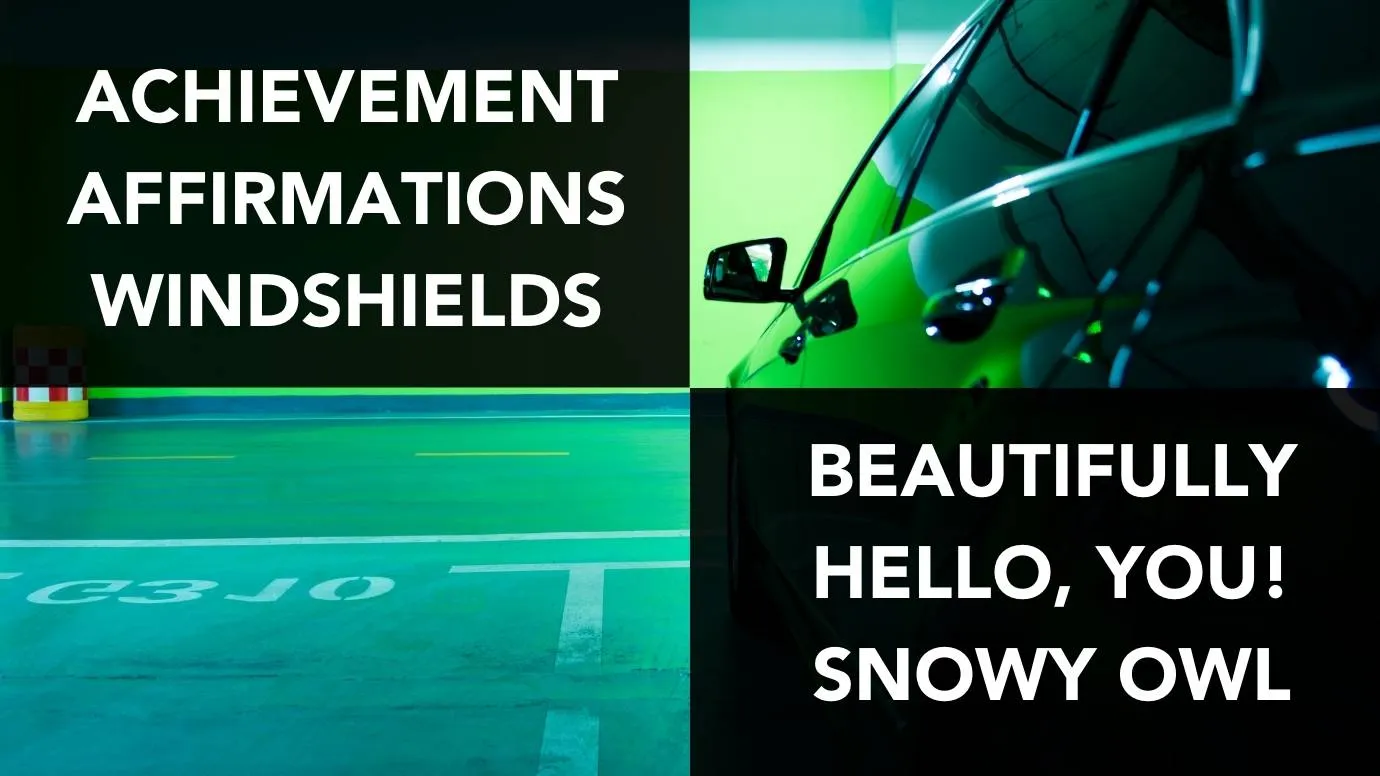
Now I am presenting to you an attractive and unique font. Toyota Font is a sans-serif typeface that is used by Toyota Motor Corporation. The font was created in collaboration with Japanese type foundry Morisawa.
This typeface is used in Toyota’s branding and advertising, as well as in its vehicles’ infotainment systems. It is available in two weights, Regular and Bold. Toyota Motor Corporation also offers a Japanese version of the Regular weight, which is used in Toyota’s Japanese-language advertising.
Avenir font is used in creating this interesting and astonishing font. This font is very popular all over the world. This font is good for designing projects. You can create tremendous designs with the help of this font.
Designer of Toyota Font
This font is designed by font designer and lettering artist Adrian Frutiger. He belongs to Switzerland.
This font style is created with a unique and regular style. This single attractive style is a combination of 150 characteristics, including Capital alphabets, a Small alphabet, punctuations, glyphs, digits, symbols, special characters, and with a large number of language support,
Toyota Font
Name Toyota Font
Style Sans Serif
Designer Morisawa
Is Toyota Font the same as Helvetica?
No, the two fonts are not related. However, they are both sans-serif typefaces.
Does Apple own Toyota Font?
No, Toyota Motor Corporation owns the font. Apple does not have an ownership stake.
Is Toyota Font good for a resume?
There is no definitive answer to this question. However, it may be a good choice for a resume because it is a sans-serif typeface, which is generally considered to be easier to read than a serif typeface.